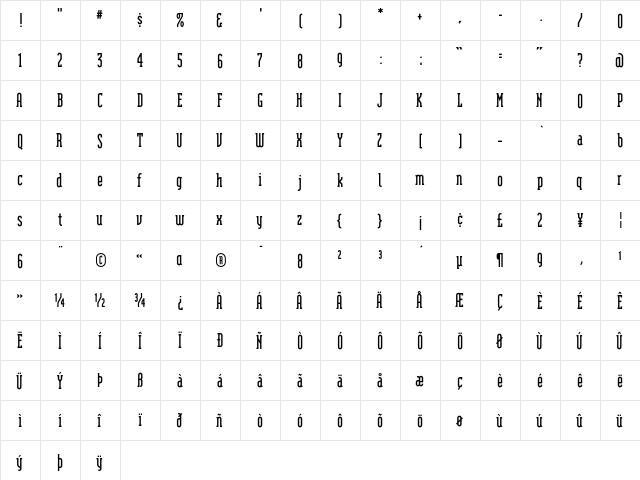
ModulaSerifBold Regular Font Preview
ModulaSerifBold Regular
Design Context for ModulaSerifBold Typeface
ModulaSerifBold brings classic typographic sensibility to the table — its serifs and measured letterforms reflect centuries of print heritage. Its bold stroke weight gives it real presence on the page.